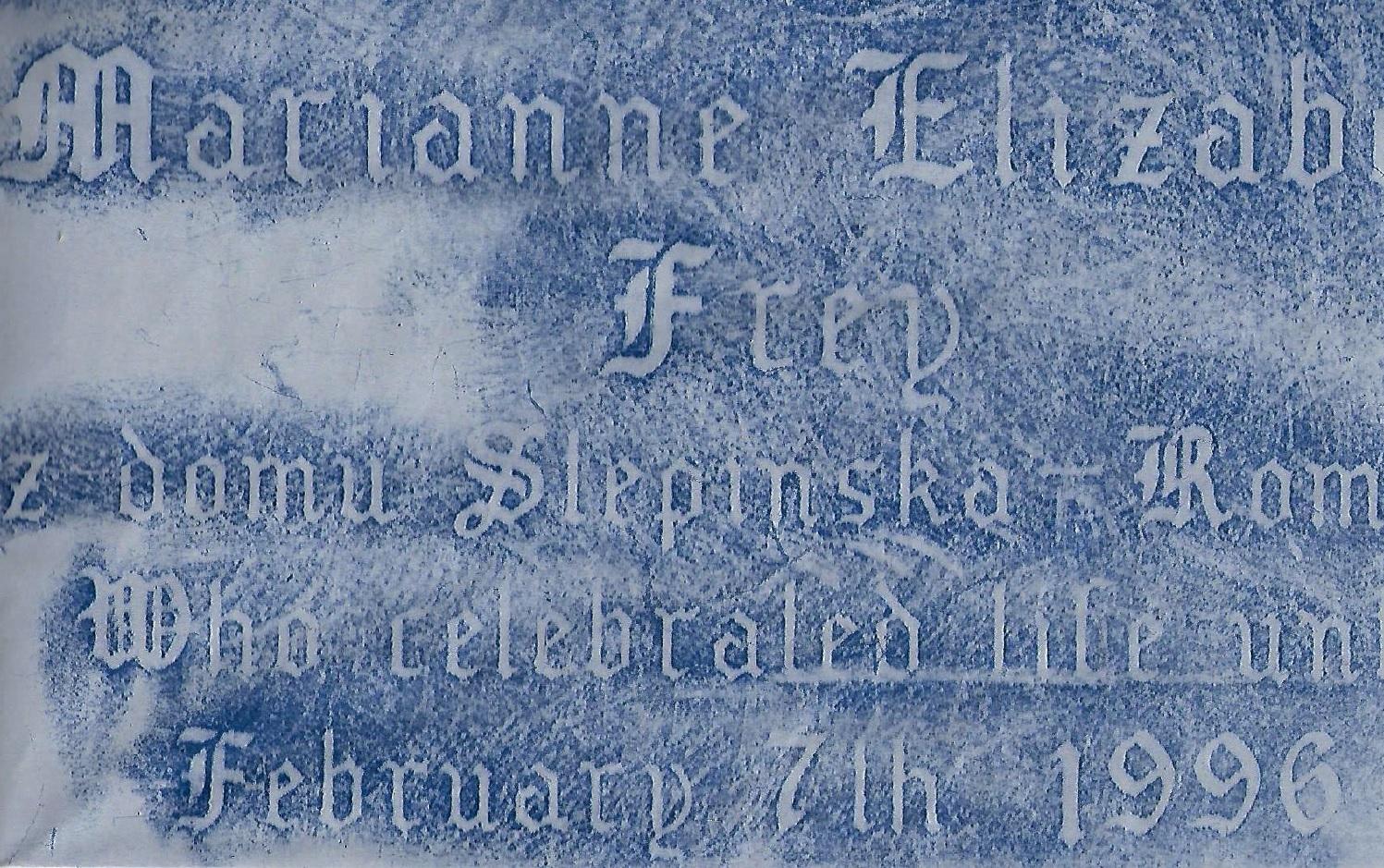
Hello, this is the old metal Spacerite Old English alphabet. You can see that the number 1 was placed upside down and has been dropped below the baseline as a result. The letter ‘a’ also appears to have been modified.